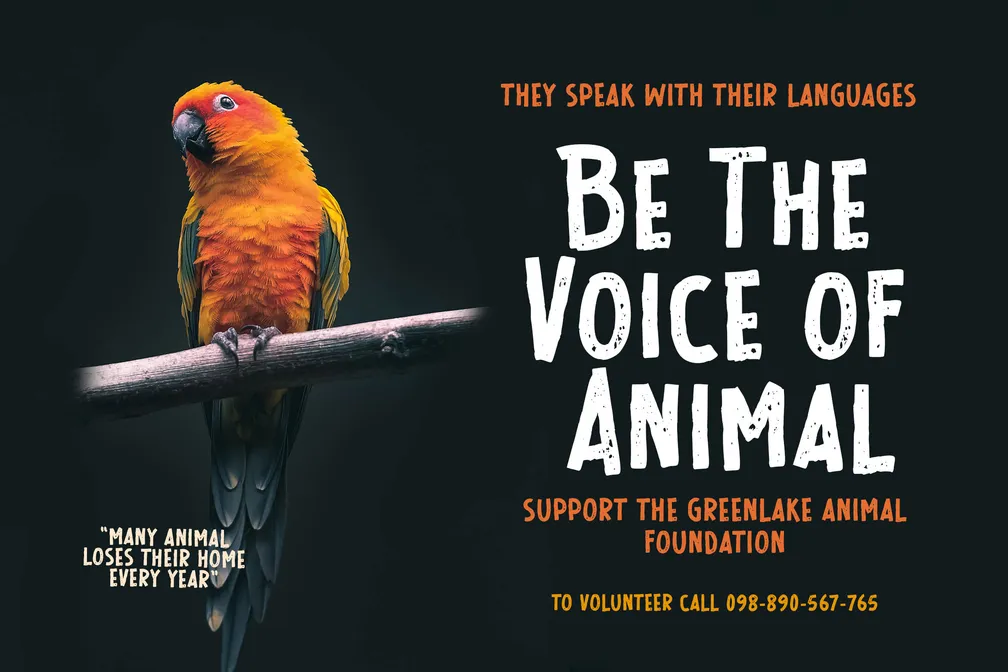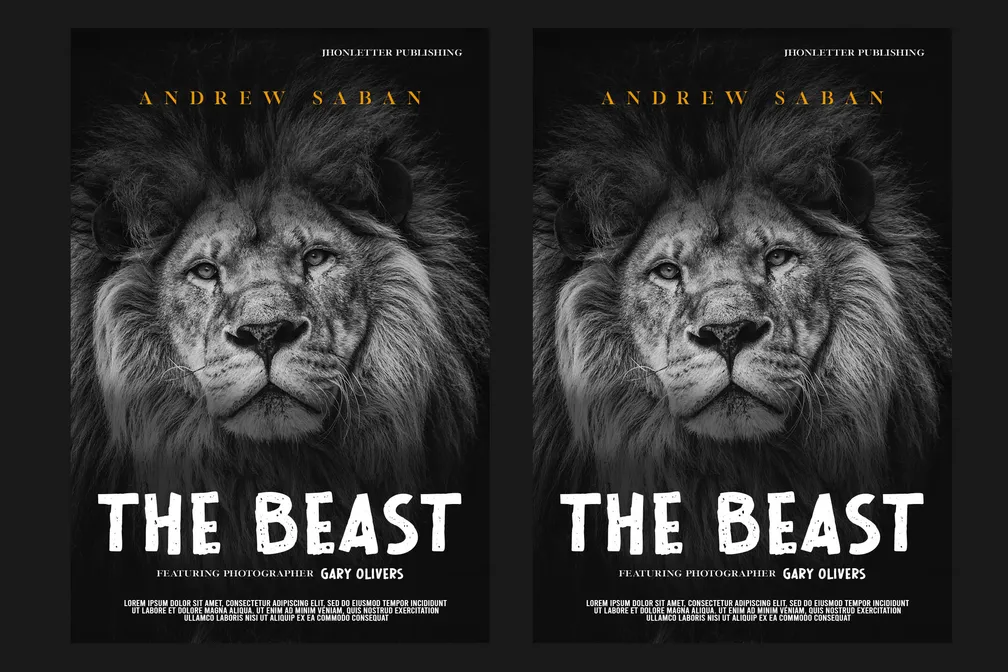
Wild Hunt
WILD HUNT is a bold handwritten display font built with raw, organic strokes that feel natural and imperfect. The letterforms carry rough textures, uneven edges, and distressed details, giving the font a fearless, wild personality inspired by nature’s unpredictable energy.
Designed for high-impact headlines, posters, branding, broadcast titles, magazines, logos, and expressive visual typography, WILD HUNT delivers a strong masculine aesthetic with emotional intensity. It includes uppercase, lowercase, numbers, punctuation, and special characters for maximum flexibility.
If you’re looking for handwriting that feels real, gritty, and untamed, WILD HUNT answers the call of the wild.